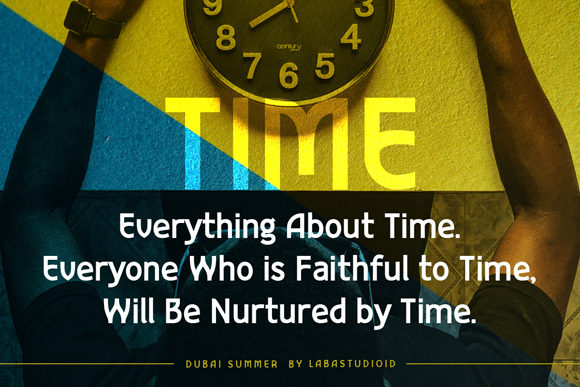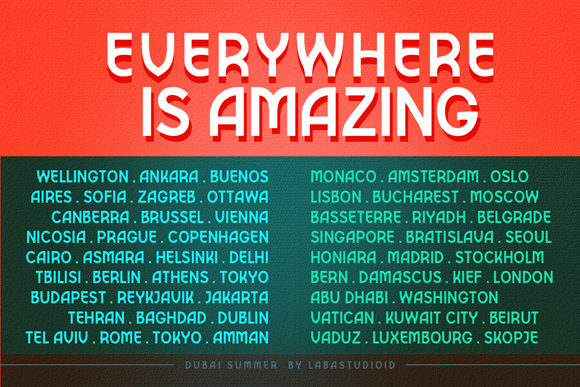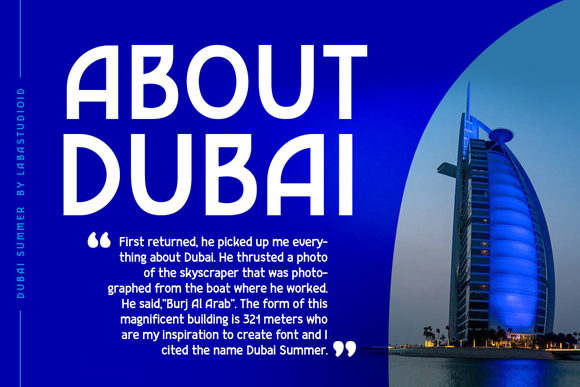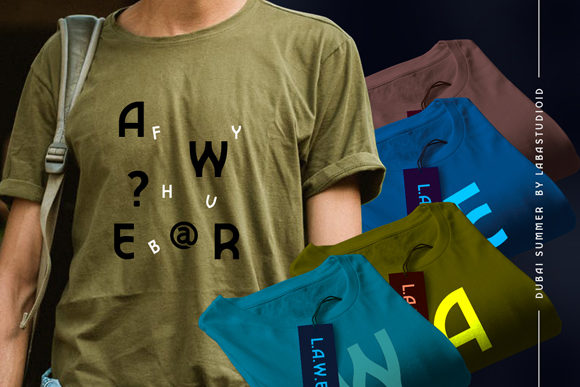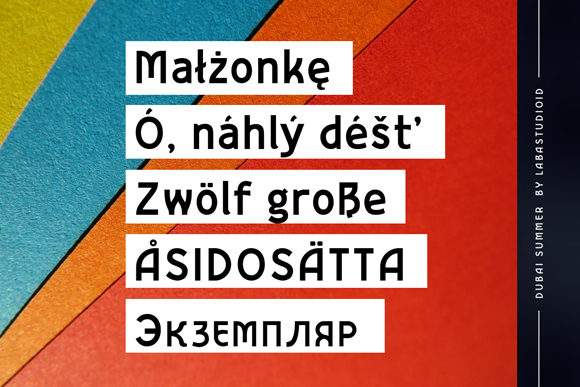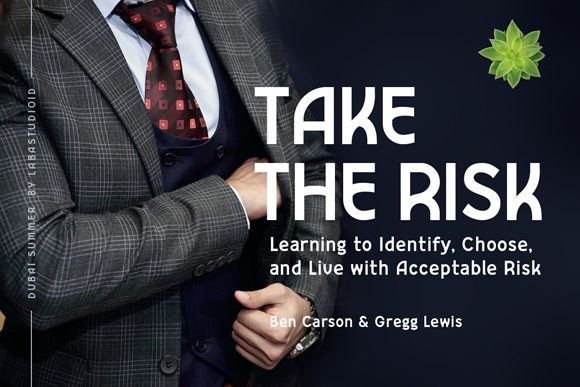
Dubai Summer Font: The Epitome of Elegance in Typography
The world of typography is vast and diverse, with numerous fonts catering to various design needs. Among these, the Dubai Summer font stands out for its unique blend of simplicity and elegance. This sans serif font has been making waves in the design community for its neat and beautiful arrangement of letters, making it a versatile choice for both formal and non-formal designs.
What Makes Dubai Summer Font So Special?
Dubai Summer simplifies elegance into one truly outstanding sans serif font. Its clean lines and well-proportioned letters make it an excellent choice for designers looking for a font that exudes sophistication without being too ornate. The font’s simplicity ensures that it remains legible even at smaller sizes, making it perfect for a wide range of applications, from business cards to billboards.
Key Features of Dubai Summer Font
- Neat and Beautiful Arrangement of Letters: Each letter in the Dubai Summer font is meticulously designed to ensure that the font looks great in any context. The even spacing and balanced proportions contribute to its overall aesthetic appeal.
- Versatility: One of the standout features of Dubai Summer is its versatility. It can be used in both formal and non-formal designs, making it a valuable addition to any designer’s toolkit.
- Elegance: The font’s elegant design makes it suitable for projects that require a touch of sophistication. Whether you’re working on a luxury brand’s logo or an elegant wedding invitation, Dubai Summer is up to the task.
- Legibility: Despite its elegant appearance, Dubai Summer does not compromise on legibility. Its clear and simple design ensures that text remains easy to read, even at smaller sizes.
Use Cases for Dubai Summer Font
The Dubai Summer font is incredibly versatile, making it suitable for a wide range of design projects. Here are some use cases where this font truly shines:
- Branding and Logos: The elegant and sophisticated design of Dubai Summer makes it an excellent choice for branding and logo design. It can help create a lasting impression on customers and set a brand apart from its competitors.
- Advertising and Marketing Materials: Whether you’re designing a brochure, flyer, or poster, Dubai Summer can add a touch of elegance to your marketing materials, making them more visually appealing.
- Web Design: For web designers, Dubai Summer can be used to create stunning website headers, buttons, and other UI elements. Its legibility ensures that it remains effective even on digital screens.
- Stationery and Packaging: From business cards to product packaging, Dubai Summer can elevate the design of your stationery and packaging, giving them a professional and polished look.
Tips for Using Dubai Summer Font Effectively
To get the most out of the Dubai Summer font, consider the following tips:
- Pair it with Complementary Fonts: While Dubai Summer is elegant on its own, pairing it with complementary fonts can enhance its appeal. Consider pairing it with serif fonts for a classic look or with other sans serif fonts for a modern aesthetic.
- Experiment with Font Sizes: Don’t be afraid to experiment with different font sizes to create visual hierarchy in your designs. Larger sizes can be used for headings, while smaller sizes can be used for body text.
- Pay Attention to Color: The color you choose for your text can significantly impact the overall look of your design. Consider using contrasting colors to make your text stand out or matching colors to create a harmonious look.
Dubai Summer font is a remarkable addition to the world of typography. Its blend of simplicity and elegance makes it a versatile choice for designers and crafters. Whether you’re working on a formal or non-formal design project, Dubai Summer is sure to make a lasting impression. With its neat and beautiful arrangement of letters, this font is poised to become a favorite among designers looking for a touch of sophistication in their work.